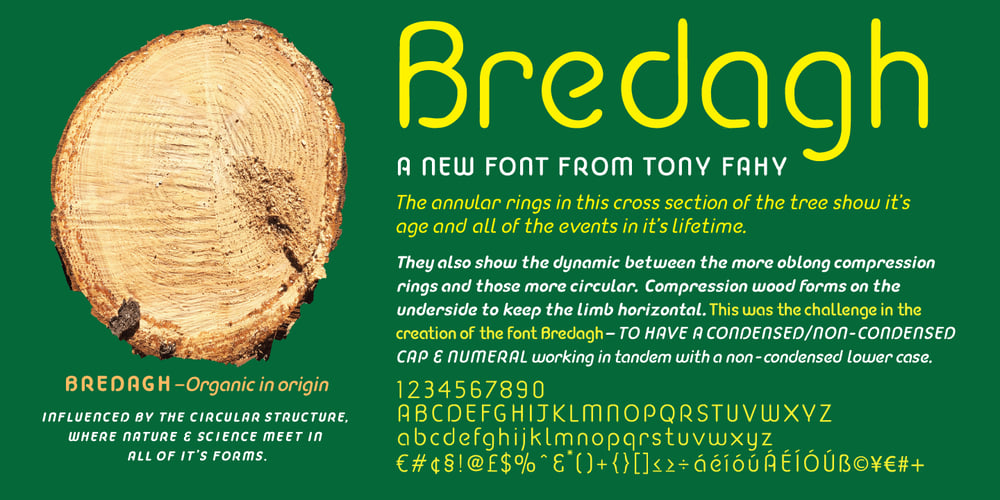
Bredagh Font Family was designed by Tony Fahy and published by Tony Fahy Font Foundry. Bredagh contains 8 styles and family package options. Bredagh (pronounced Braid-ah) is a happy font! It can bring a smile to your face, yet is at one with science and mathematics and the Arts. The first presentation is in a Poetry book. Overall, it is a strong and capable font. The organic nature of the font Breadgh is in Nature itself, with the roundels as found in the cross-section of a tree, for example, both circular and rounded oblong shapes, influencing. Accordingly, some of the characters are of a condensed nature and some are not. The lower case does not have the condensed aspects but the numerals do. In the creation of Bredagh, it was the dynamic between all of these that was part of the challenge. And to make them all work together subtly to be in overall harmony—was the ultimate challenge.